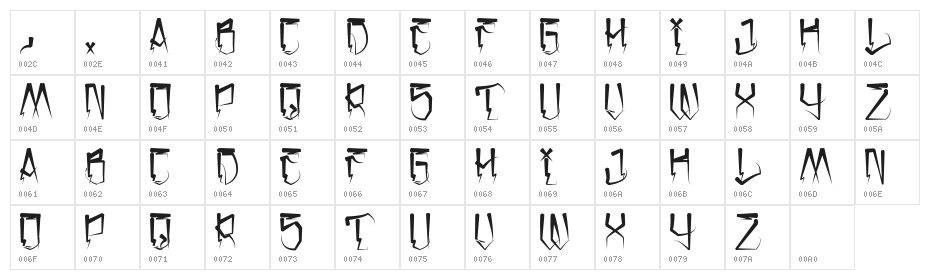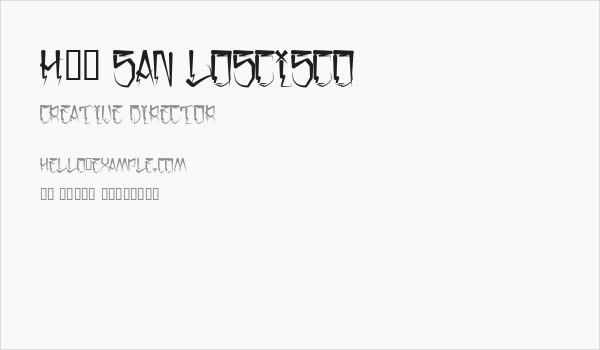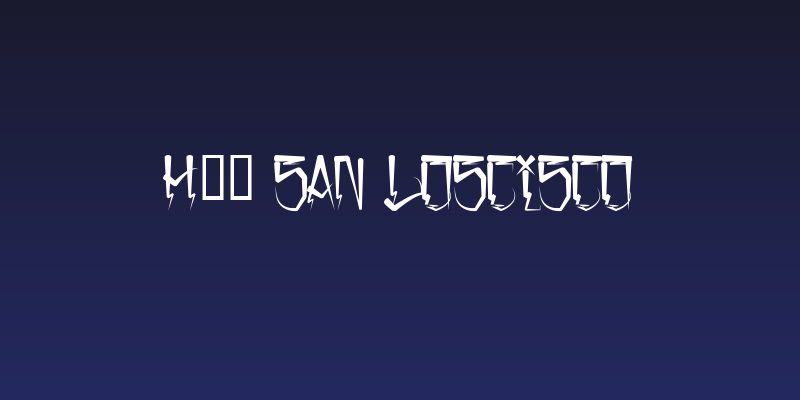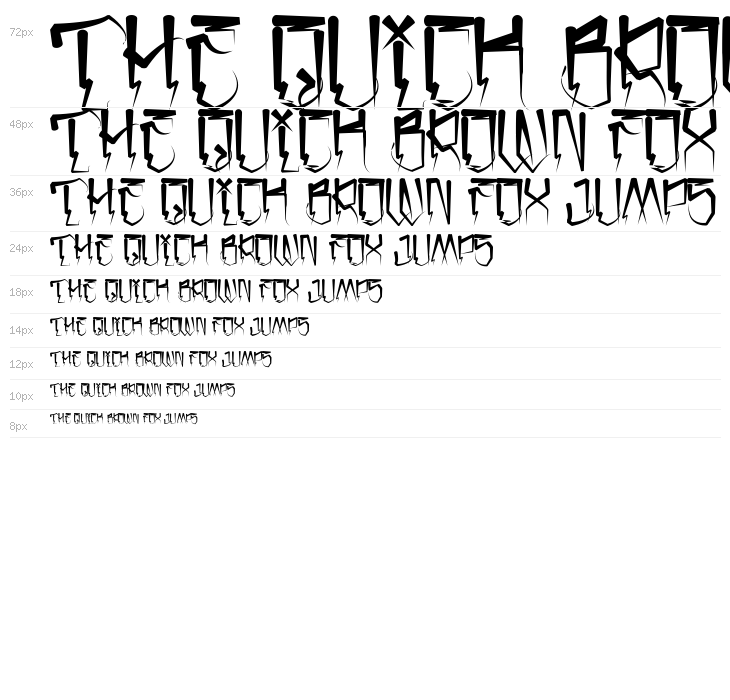
H74 San Loscisco Font
H74 San Loscisco Description
This font features a highly decorative and edgy style, characterized by sharp angles and dynamic, lightning bolt-like extensions. Each letter is uniquely crafted with a sense of movement and energy, making it stand out with its bold and striking appearance. The uppercase and lowercase letters maintain a consistent design theme, while the numbers and special characters follow suit with their own distinctive flair. The overall design is reminiscent of graffiti or street art, giving it a rebellious and modern feel.
| Overall Style | Modern, Edgy |
| Proposed Projects | Ideal for use in music album covers, streetwear branding, event posters, or any project needing a bold, rebellious aesthetic. |